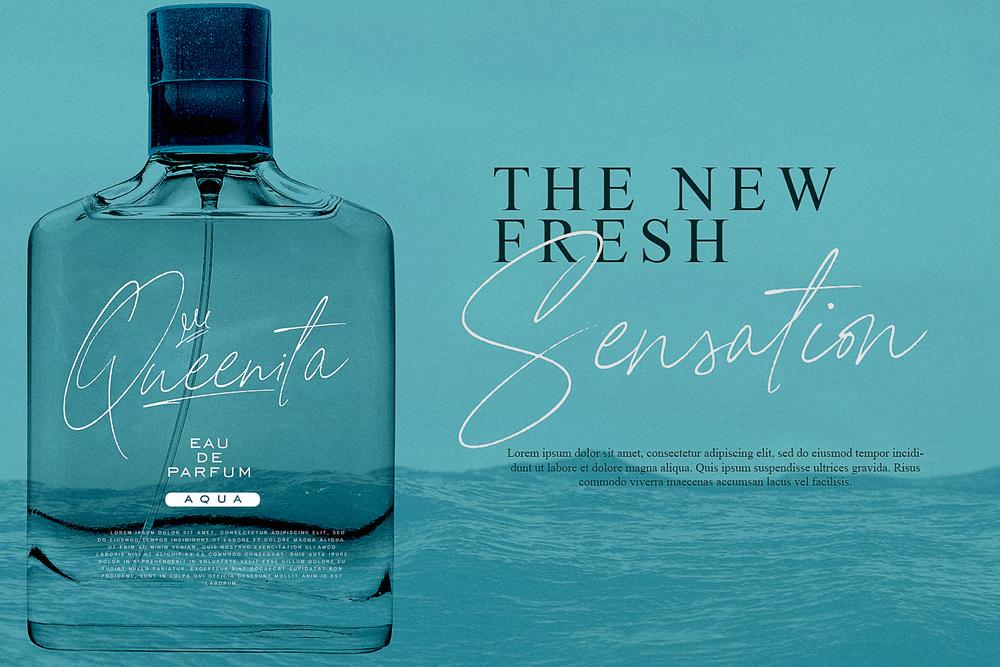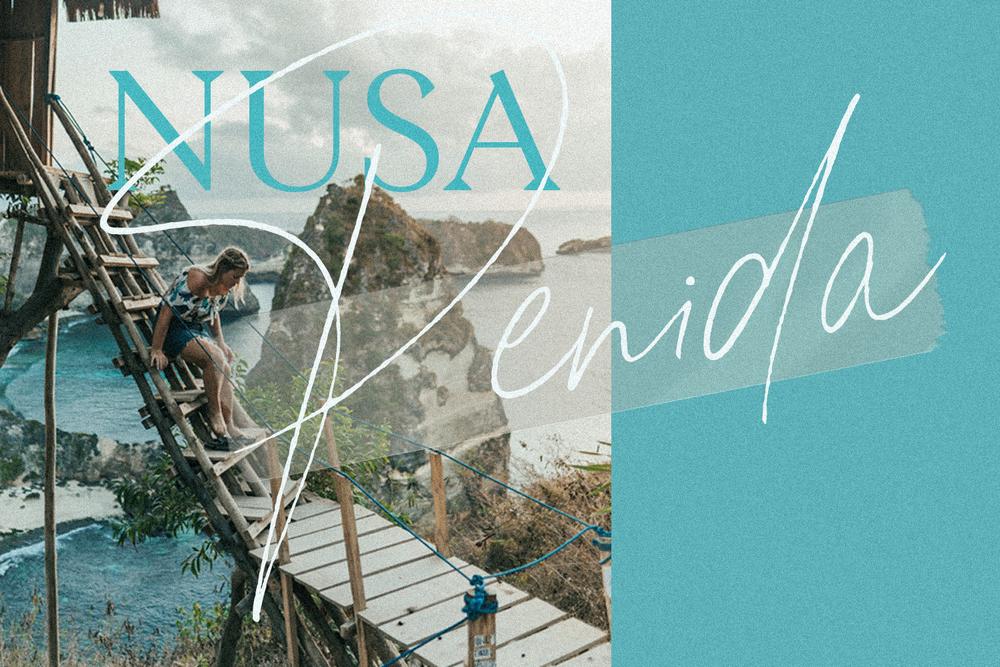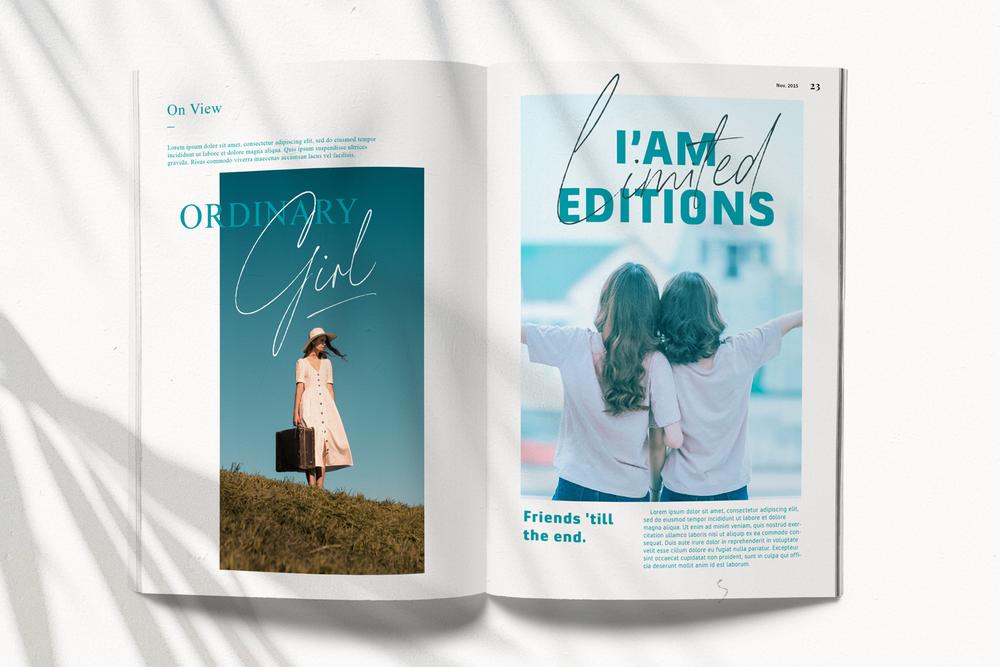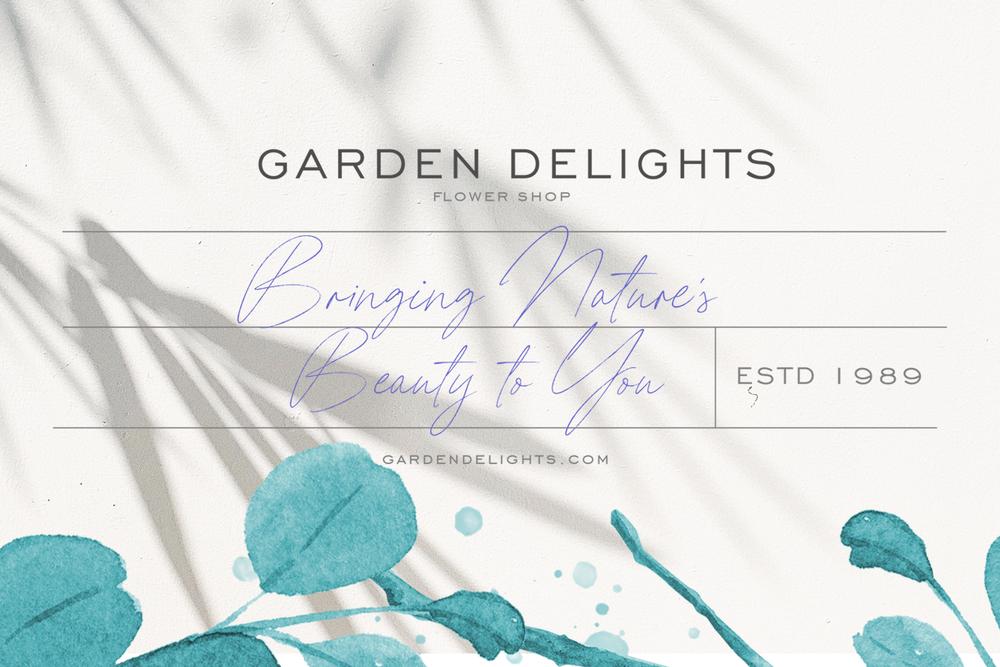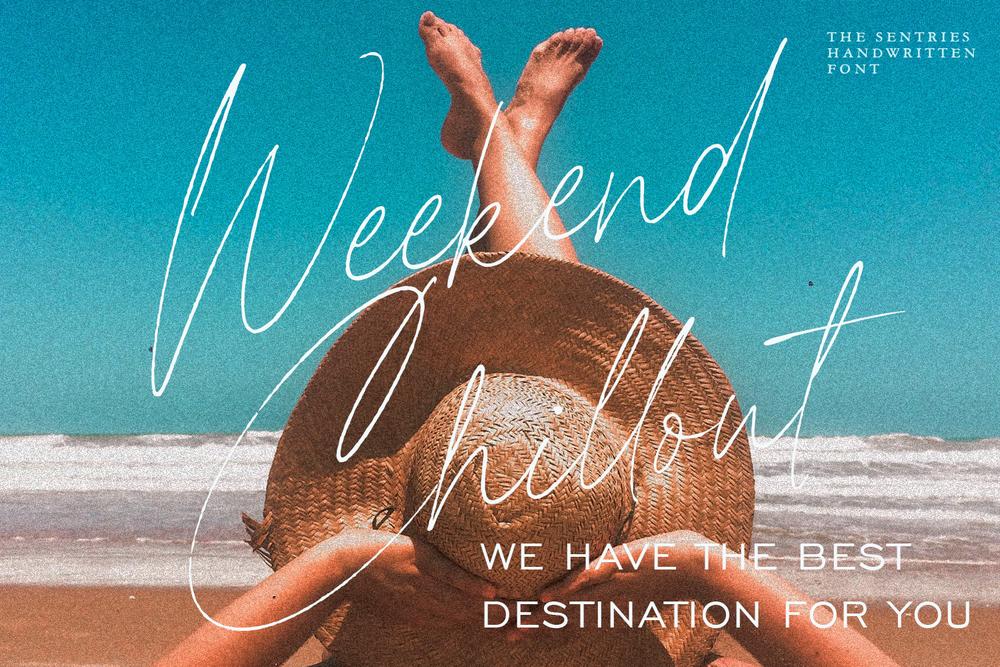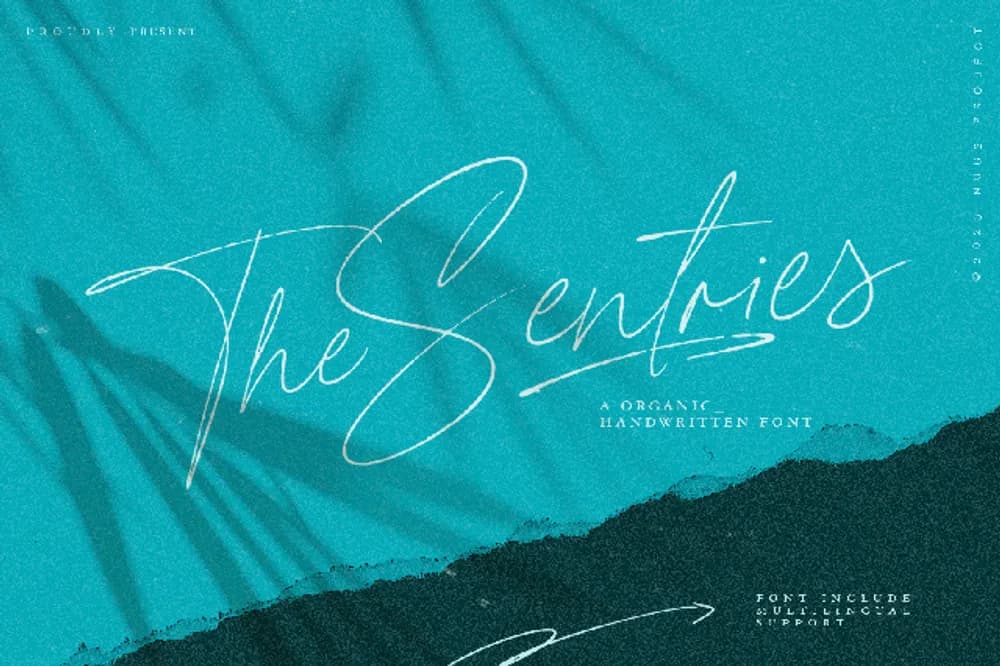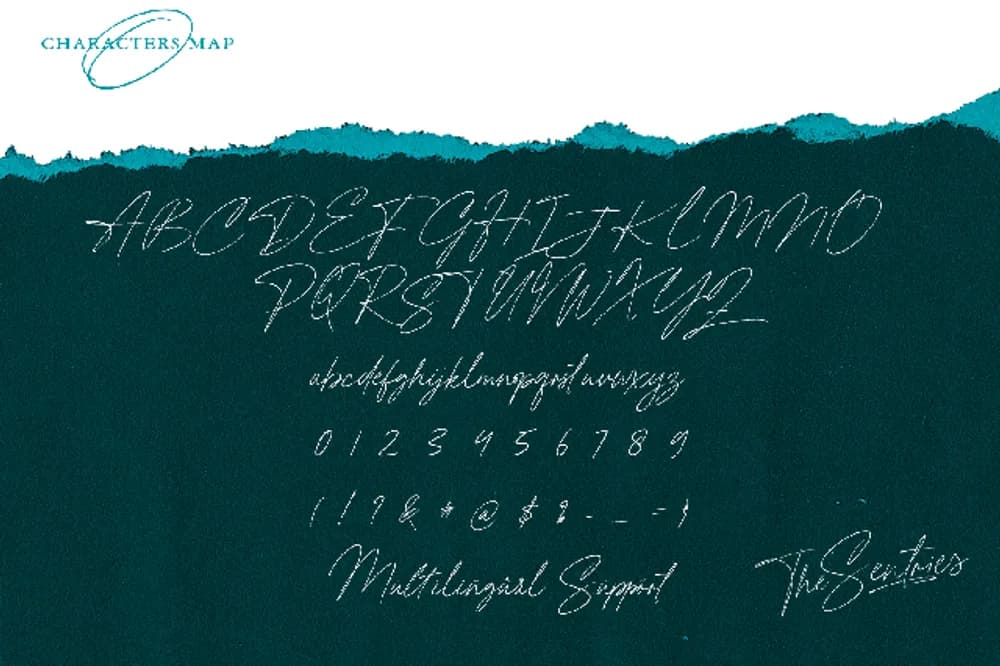
The Sentries consisting of a fashionable sophisticated handwritten-style script with its own unique curves and an elegant inky flow. The Sentries is a Handwritten font with natural and modern feels. It will be perfectly used for Branding, Logo Design, Lettering, Logotype, Clothing, Poster, magazine, packaging, posters, shopping bags, t-shirts, book covers, photography, special events and other design project. 𝐅𝐨𝐫𝐦𝐚𝐭 : OTF, TTF, and WOFF.